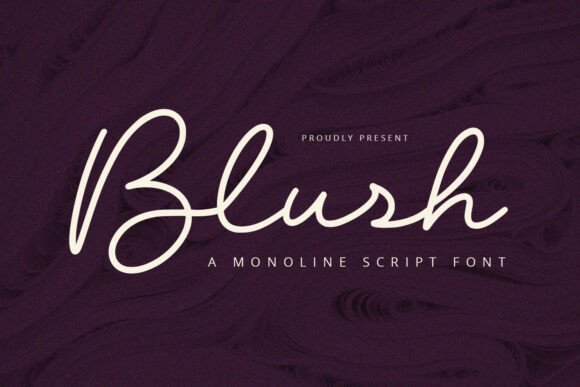
The Blush Font: Elevate Your Designs with Effortless Sophistication
Have you ever been in the middle of a design project, and suddenly, you’re stuck on finding the perfect font? I recall a recent experience where I was working on a luxury branding project, and my client requested a font that exuded elegance and sophistication. After hours of searching, I stumbled upon the Blush font, and it instantly became the perfect fit. In this article, we’ll dive into the world of Blush, an elegant and modern monoline script that captures the essence of effortless sophistication.
A Personal Review: What I Love About Blush
As a designer, I’m always on the lookout for fonts that can elevate my projects. Here’s what I love about Blush:
• ✨ Elegant and modern monoline script with a single, fluid stroke
• ✅ Beautifully looping connections that exude a gentle yet confident charm
• ✨ Clean and consistent weight for perfect readability
• ✅ Personal touch of authentic handwriting
• ✨ Versatile and perfect for various design projects, from premium branding to social media graphics
While Blush is an amazing font, there are a few minor quirks to be aware of:
• ⚠️ Limited use of uppercase letters, but the font makes up for it with beautiful swashes and alternate characters
• 🤔 Some users may find the font too elegant or sophisticated for certain projects, but it’s all about finding the right fit
The Story Behind Blush
The Blush font was designed with the intention of creating a modern, elegant script that captures the essence of effortless sophistication. Inspired by the flowing connections of handwritten scripts, Blush’s creator aimed to craft a font that would be both versatile and luxurious. The result is a beautiful, modern monoline script that’s perfect for a wide range of design projects.
A: Blush is perfect for premium branding, wedding invitations, boutique packaging, social media graphics, clothing designs, posters, and magazines.
Q: Is Blush a script font?
A: Yes, Blush is a modern monoline script font with beautifully looping connections.
Q: Is Blush PUA-encoded?
A: Yes, Blush is PUA-encoded, making it easy to access all glyphs, swashes, and alternate characters.